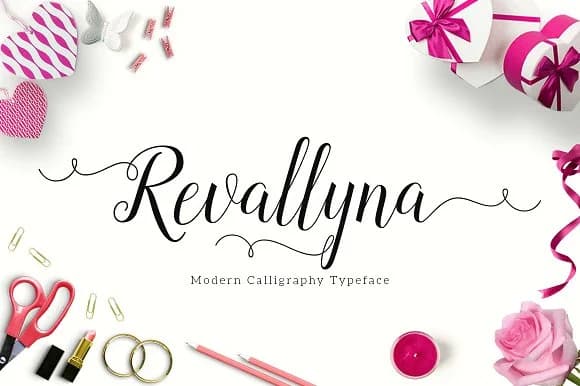
Revallyna by Unicode Studio is a flowing handwritten script that captures genuine warmth through its organic letterforms and natural rhythm. The typeface blends hand-lettered authenticity with refined, consistent proportions, creating designs that feel distinctly personal while maintaining professional polish across diverse applications and contexts. The font excels in creative projects where distinctive personality makes a strong visual impact. Boutique bakery and confectionery labels gain immediate, welcoming appeal from Revallyna's graceful, approachable strokes, while anniversary card designs benefit deeply from its intimate, handwritten quality. Etsy product photography featuring premium cosmetics or fine jewelry packaging looks notably more sophisticated with the typeface's flowing characters anchoring the composition. Event planning materials shine with this script, menu designs, wedding invitation suites, and save-the-date cards all display Revallyna's natural beauty effectively. Revallyna works seamlessly across major design platforms including Photoshop, Illustrator, and Canva, as well as with cutting software for craft and vinyl applications. Whether you're developing boutique brand identities, designing customized gift packaging, creating personal correspondence, or producing event materials, this handwritten script delivers reliable character and warmth across digital and printed work. Discover Revallyna on Creative Fabrica and create meaningful designs with authentic handwritten elegance.
Revallyna Font is a script font that shines as a display or heading face. Pair it with a clean sans-serif or serif font for body text β the contrast creates a clear hierarchy while the two styles stay balanced and easy to read.